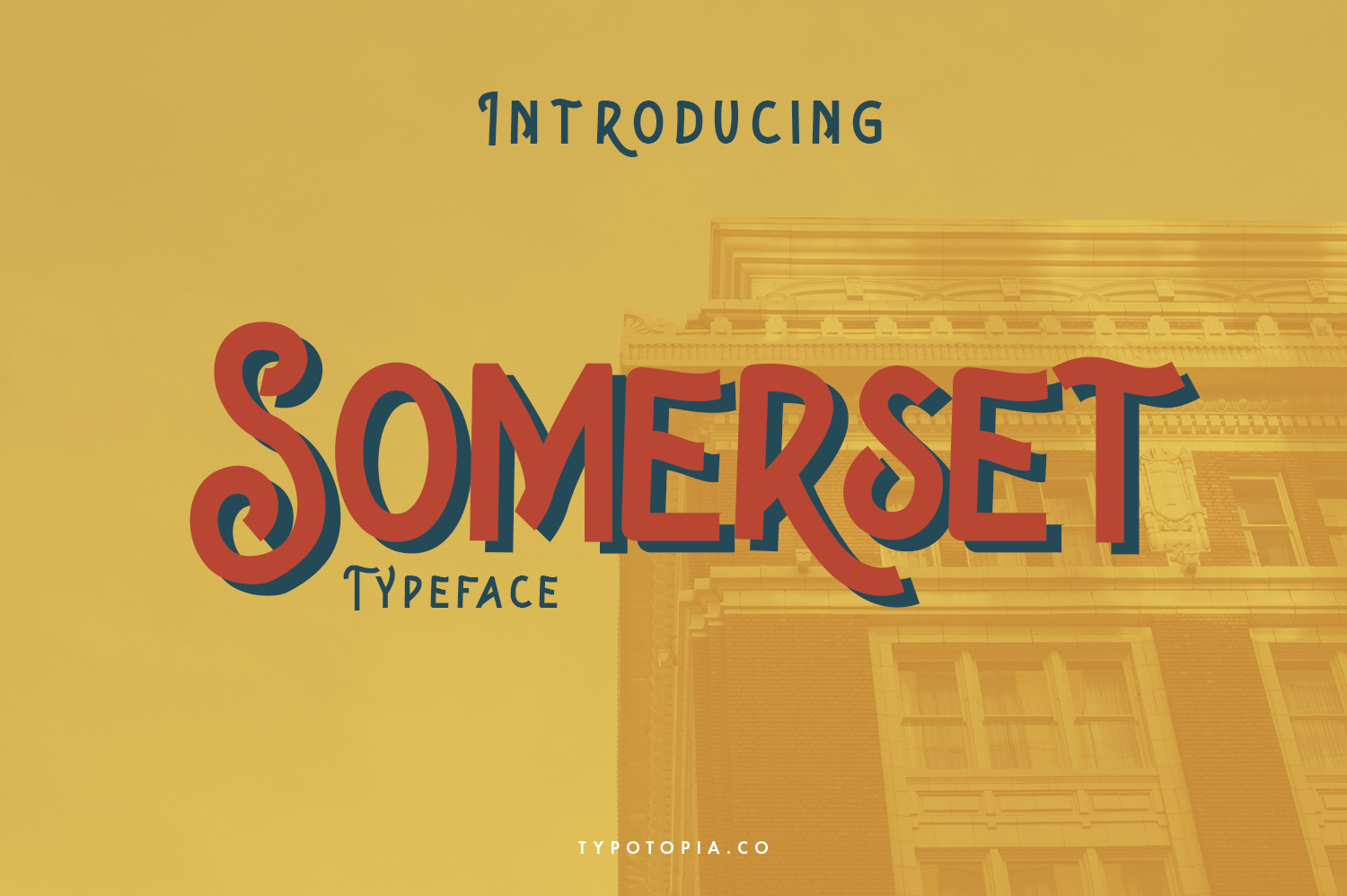
Somerset Typeface
Somerset Typeface come with modern vintage look design styles, available 4 Style typeface. These lovely fonts would be perfect to combine in your design. Suitable for digital lettering, logo, t-shirt, print, business cards, branding materials, quotes, nature photography, etc, made with hand painted and carefully crafted.
- Uppercase & Lowercase letters